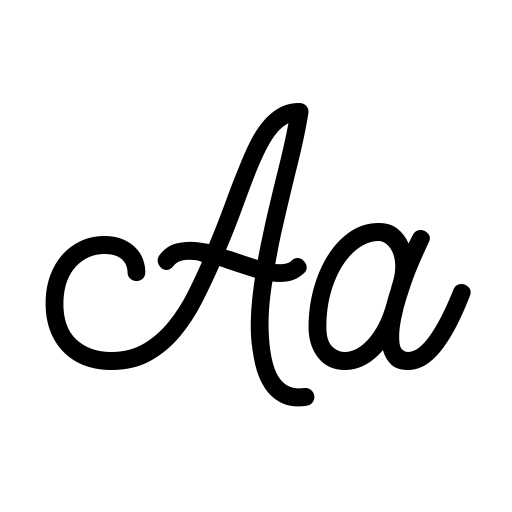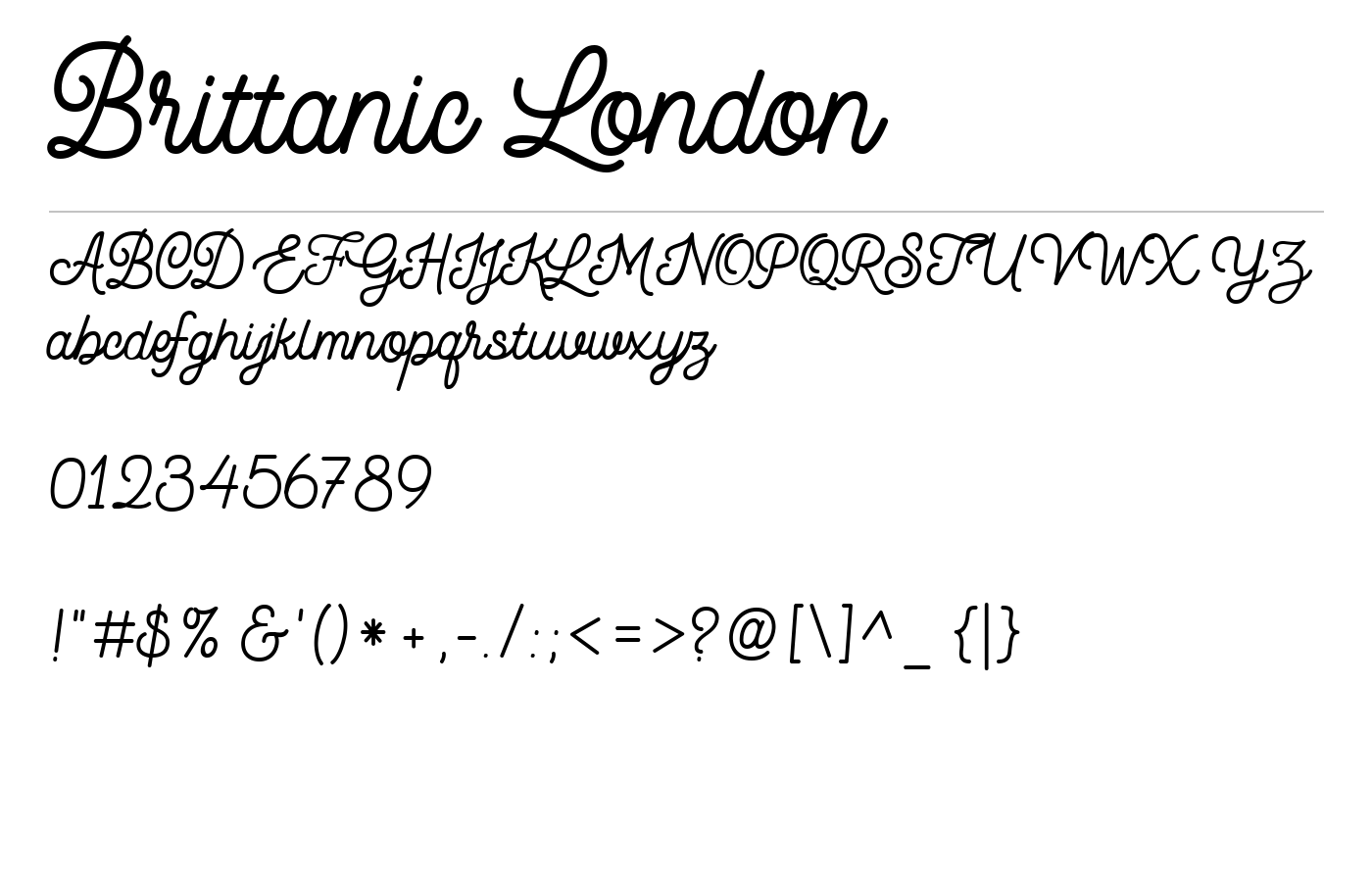
Brittanic London is a refined script font with smooth, flowing letterforms that convey elegance and a vintage charm. Its light weight and graceful curves make it ideal for stylish branding, invitations, and editorial headlines where a touch of sophistication is desired. This font works beautifully in contexts that call for a classic, yet approachable handwritten feel.
Brittanic London Font